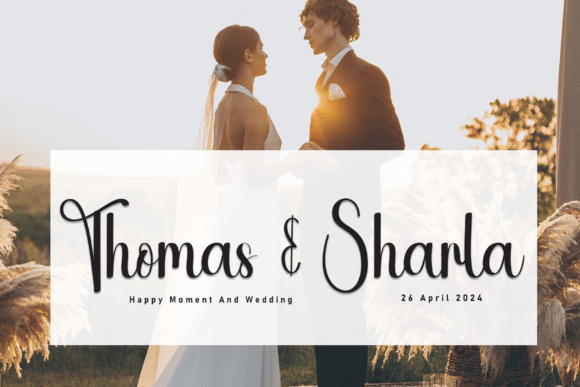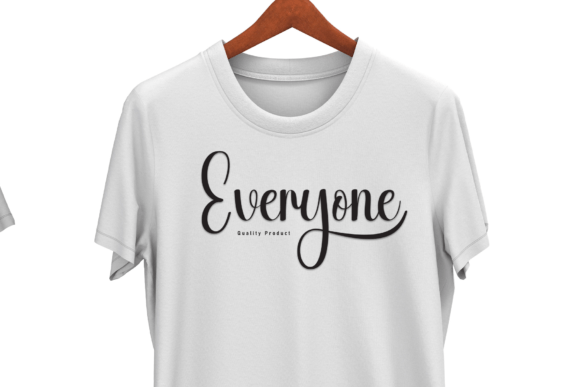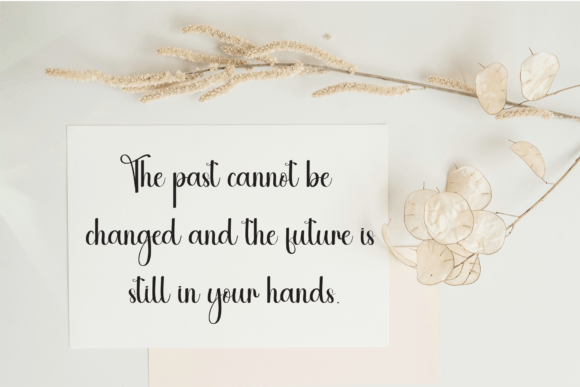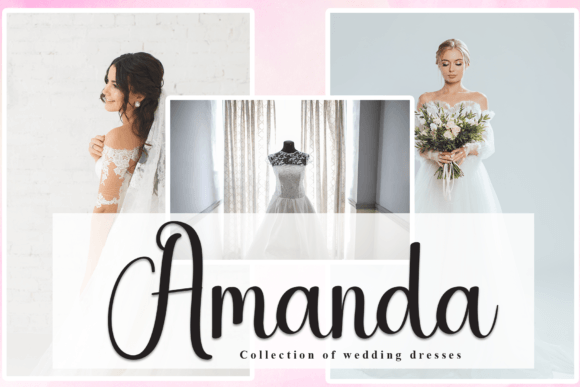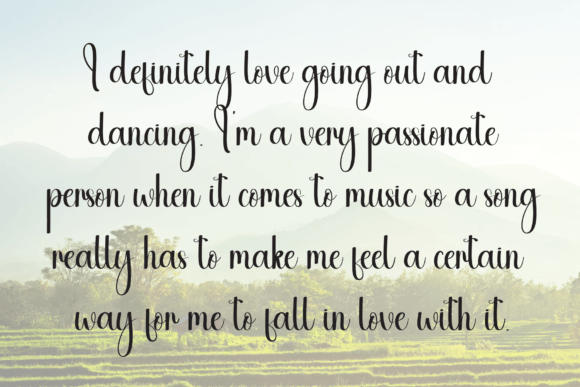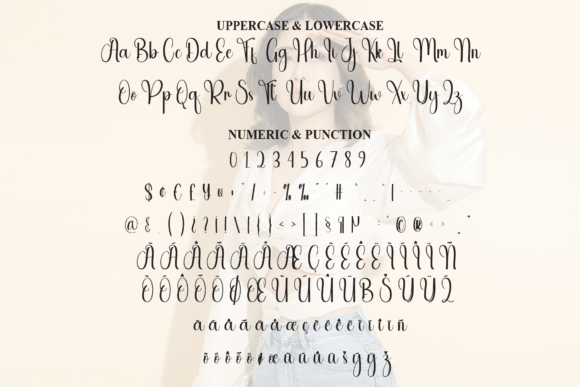
Discover the Delightful Angela Font: A Sweet and Friendly Handwritten Font
Are you looking for a font that exudes warmth, friendliness, and a touch of playfulness? Look no further than Angela Font, a charming handwritten font that is sure to capture the hearts of designers and crafters alike. With its enchanting blend of sweetness and approachability, Angela Font is the perfect choice for a variety of design projects, from wedding invitations and greeting cards to social media graphics and more.
The Charm of Angela Font
Angela Font is a delightful handwritten font that boasts an adorable and playful nature, making it an ideal selection for designers who want to add a sprinkle of fun and joy to their projects. Its sweet and friendly demeanor shines through in every letter, creating a sense of approachability and warmth that is hard to resist. Whether you’re designing a wedding invitation, a birthday card, or a social media graphic, Angela Font is sure to bring a smile to your audience’s faces.
Wedding invitations and greeting cards are special occasions that call for a font that is both elegant and playful. Angela Font fits the bill perfectly, adding a touch of whimsy and romance to any design. Its handwritten nature gives it a personal and intimate feel, making it perfect for special occasions like weddings, anniversaries, and birthdays. With Angela Font, you can create beautiful and unique designs that will make your loved ones feel special.
Why Designers and Crafters Love Angela Font
So, what makes Angela Font so loved by designers and crafters? Here are just a few reasons:
- Unique and Playful**: Angela Font is a one-of-a-kind font that adds a touch of playfulness to any design. Its unique lettering and sweet nature make it stand out from more traditional fonts.
- Versatile**: Angela Font is incredibly versatile, making it perfect for a wide range of design projects, from digital graphics to print materials.
- Easy to Read**: Despite its playful nature, Angela Font is incredibly easy to read, making it perfect for body text and headlines.
- Customizable**: With Angela Font, you can create custom designs that reflect your personal style and brand.
Tips for Using Angela Font in Your Designs
In conclusion, Angela Font is a delightful handwritten font that is sure to capture the hearts of designers and crafters alike. With its sweet and friendly nature, it’s the perfect choice for a variety of design projects, from wedding invitations and greeting cards to social media graphics and more. Whether you’re a seasoned designer or a crafter looking for a unique font, Angela Font is sure to bring a touch of fun and joy to your designs.